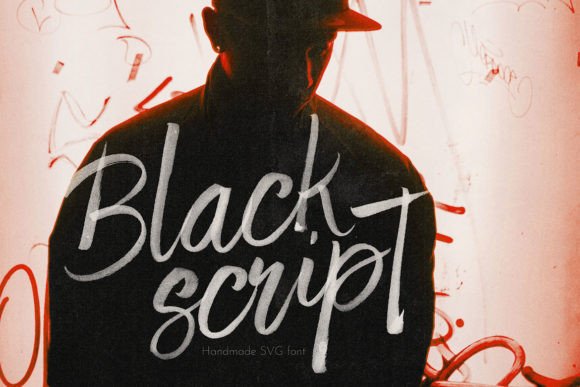
Introducing Black Script Font - The Best Font for a Modern CV!
Are you tired of using the same old boring fonts for your creative projects? Look no further, because Black Script is here to revolutionize your designs with its impeccable style and artistic essence. Created by the renowned JumboDesign, this font is a true masterpiece that will captivate your audience and leave a lasting impression.
Black Script Font is more than just a typeface; it's a work of art. Its expressive brushstrokes and natural flow bring your words to life, exuding a sense of elegance and sophistication. With every stroke, this font effortlessly captures the beauty and energy of hand-lettering, making your designs stand out from the crowd.
What sets Black Script apart is its attention to detail. Each character has its own unique personality, boasting subtle variations that add depth and charm to any project. Whether you're designing a logo, packaging, or editorial layout, this font will elevate your creations to new heights.
When it comes to branding, Black Script Font is an invaluable asset. Its versatility allows it to adapt seamlessly to various industries and themes, making it the perfect choice for businesses looking to make a bold statement. Imagine the impact this font will have on your brand identity, leaving a lasting impression on your customers and competitors alike.
Packaging design becomes an art form with Black Script Font. Its captivating style adds a touch of elegance and sophistication to product labels, making them irresistible to customers. From cosmetics to gourmet foods, this font will make your packaging shine, enticing buyers and increasing sales.
For those in the world of editorial design, Black Script Font is a game-changer. Its fluidity and grace make reading a pleasurable experience, engaging readers and immersing them in your content. Whether it's magazines, books, or brochures, this font will leave your audience wanting more.